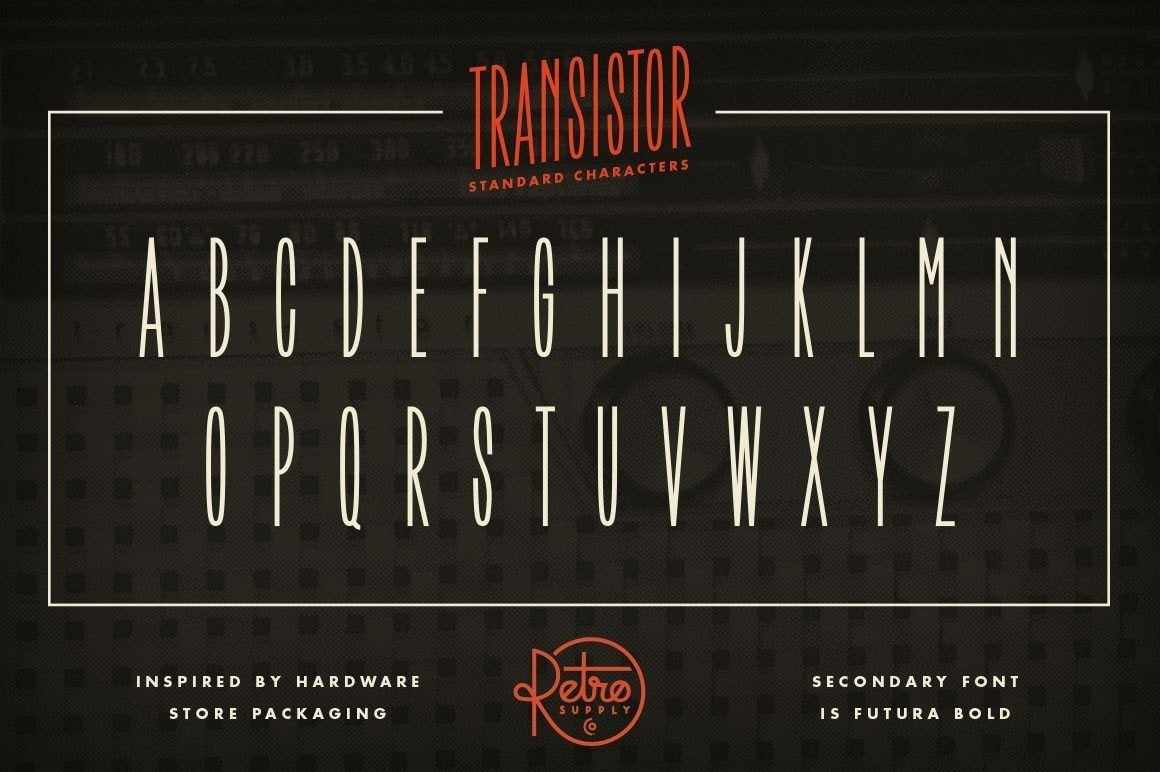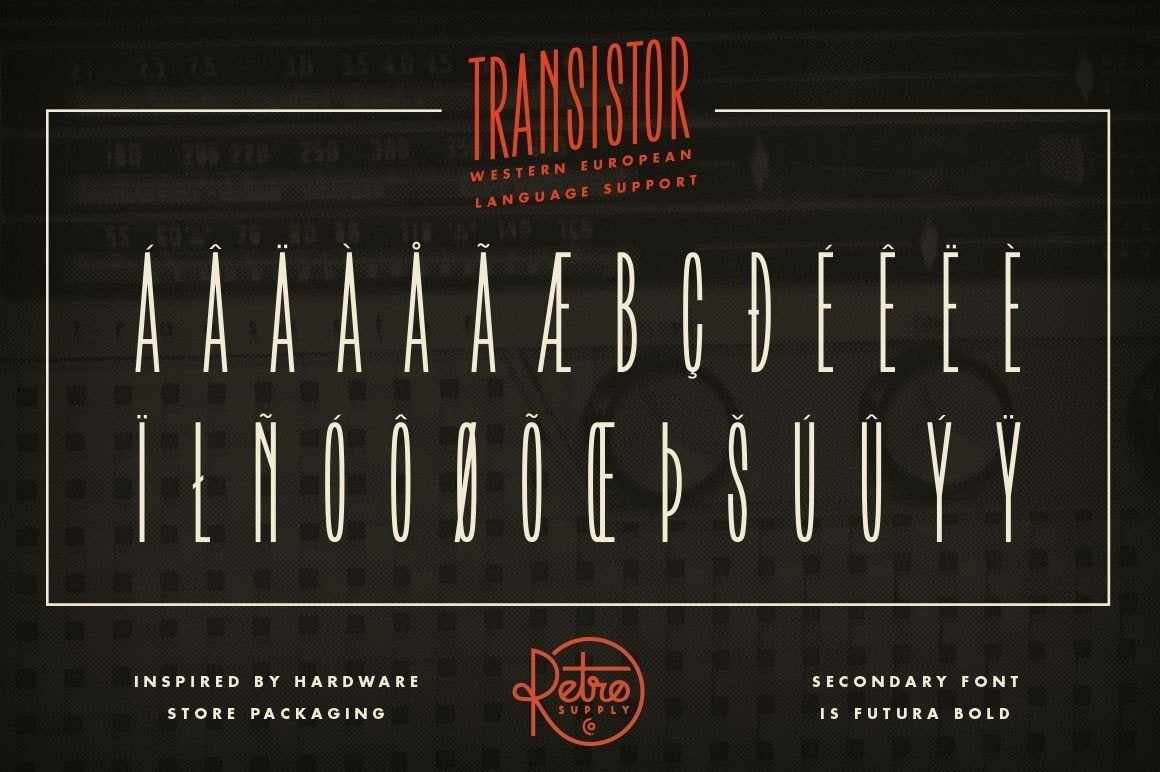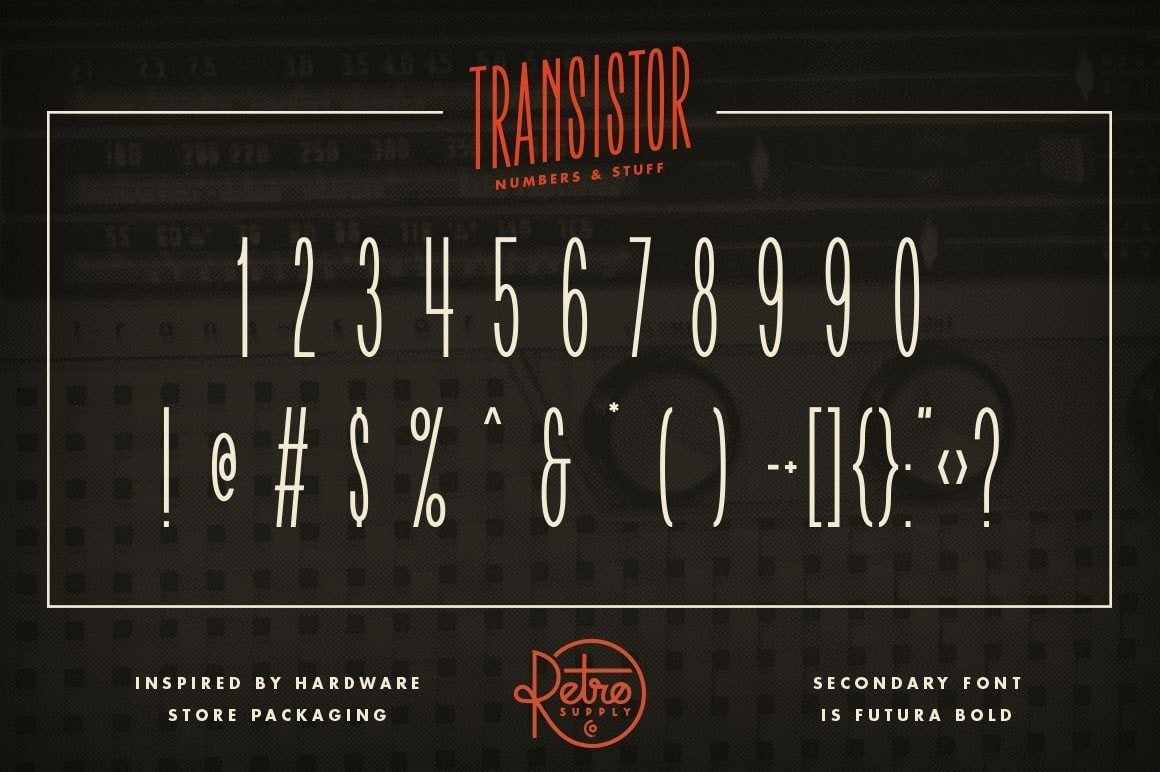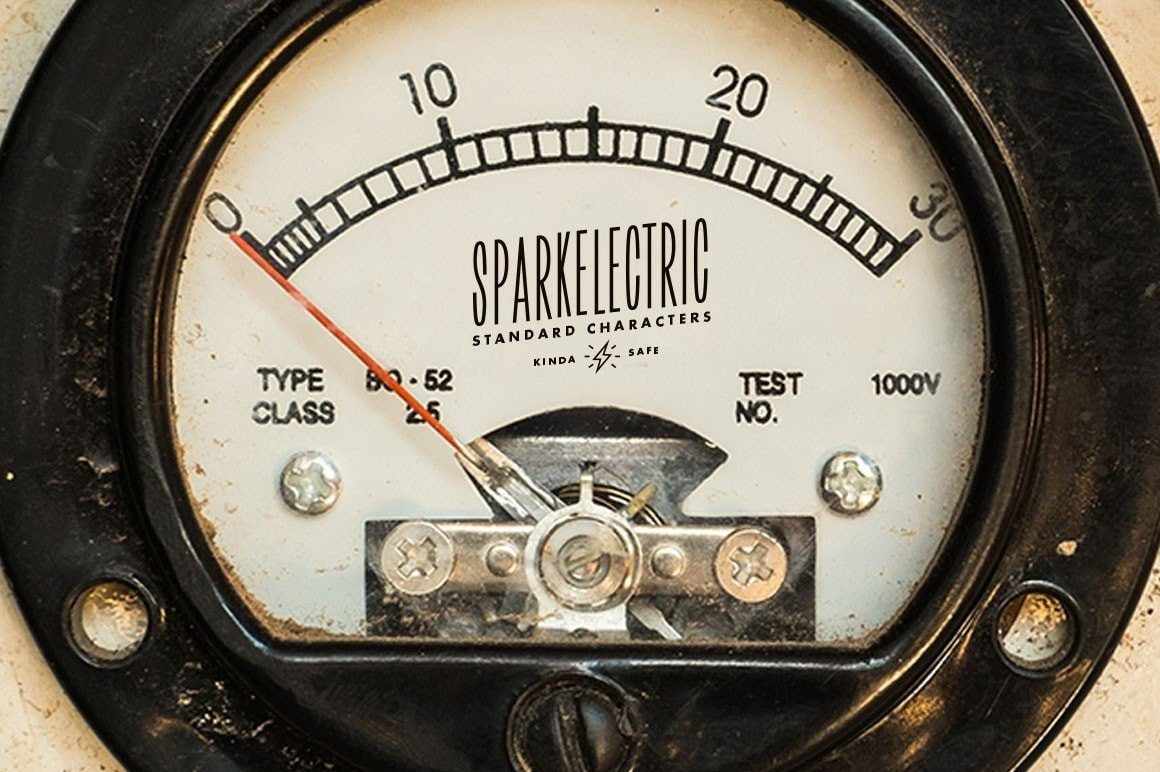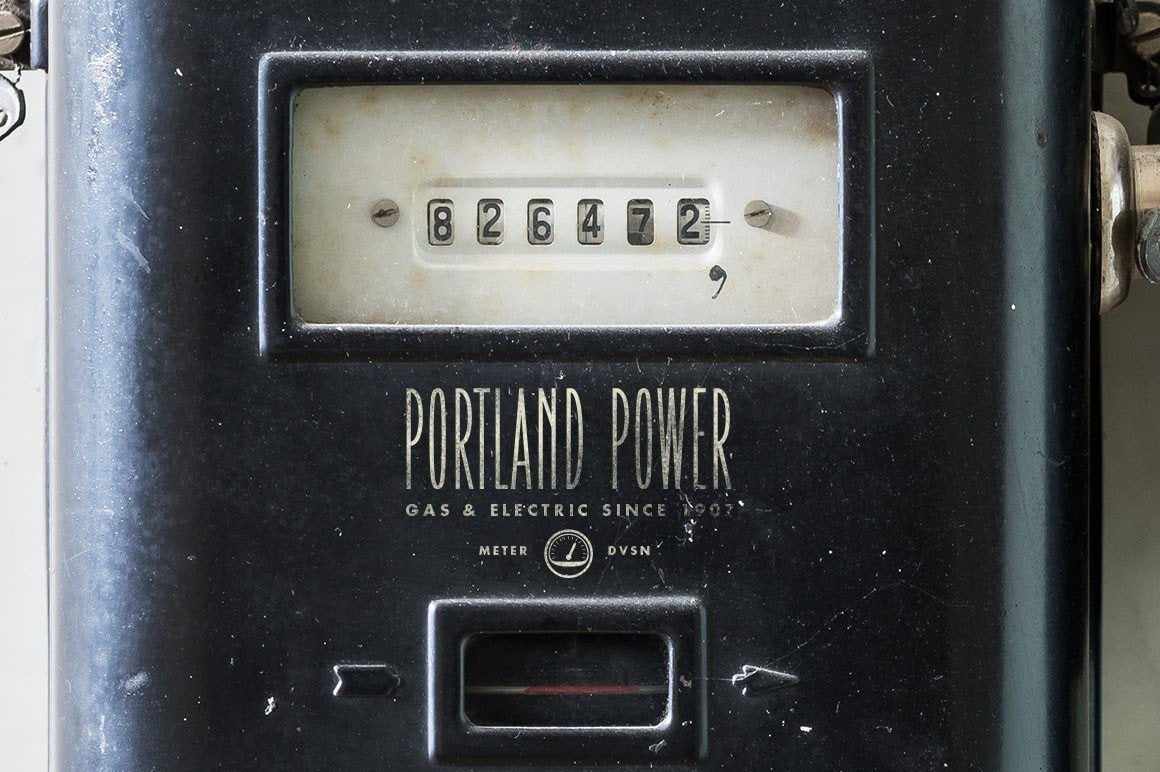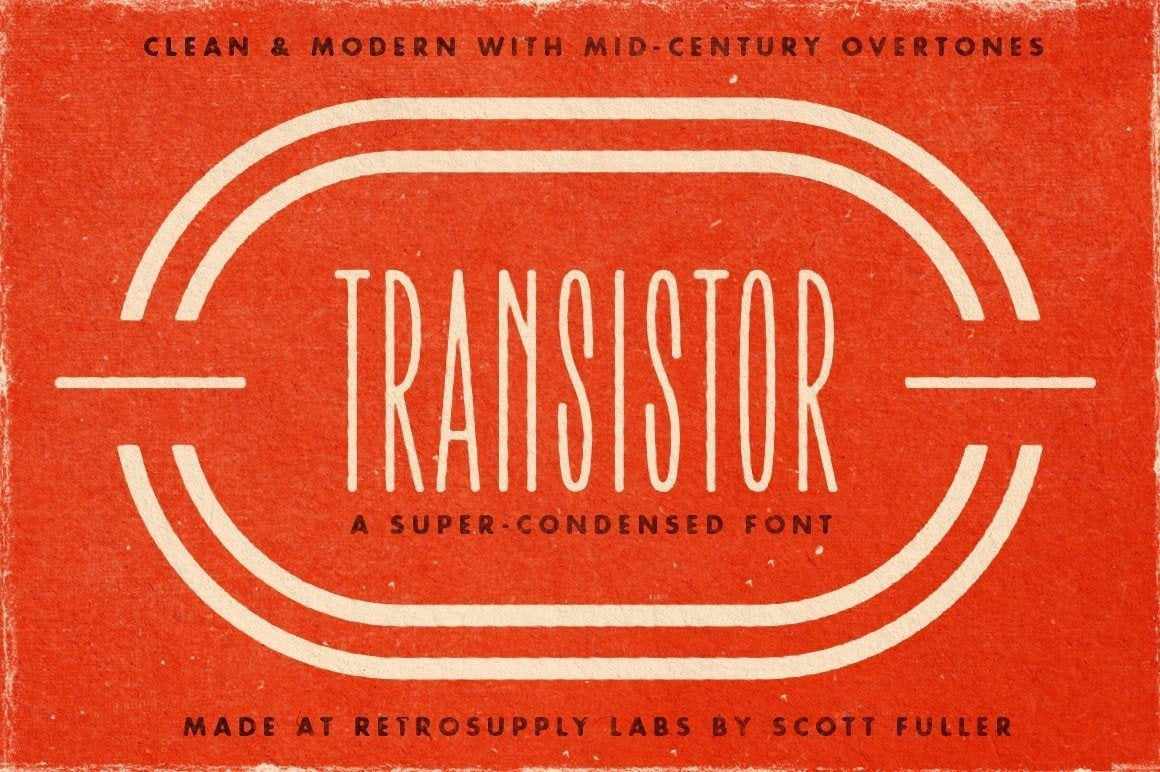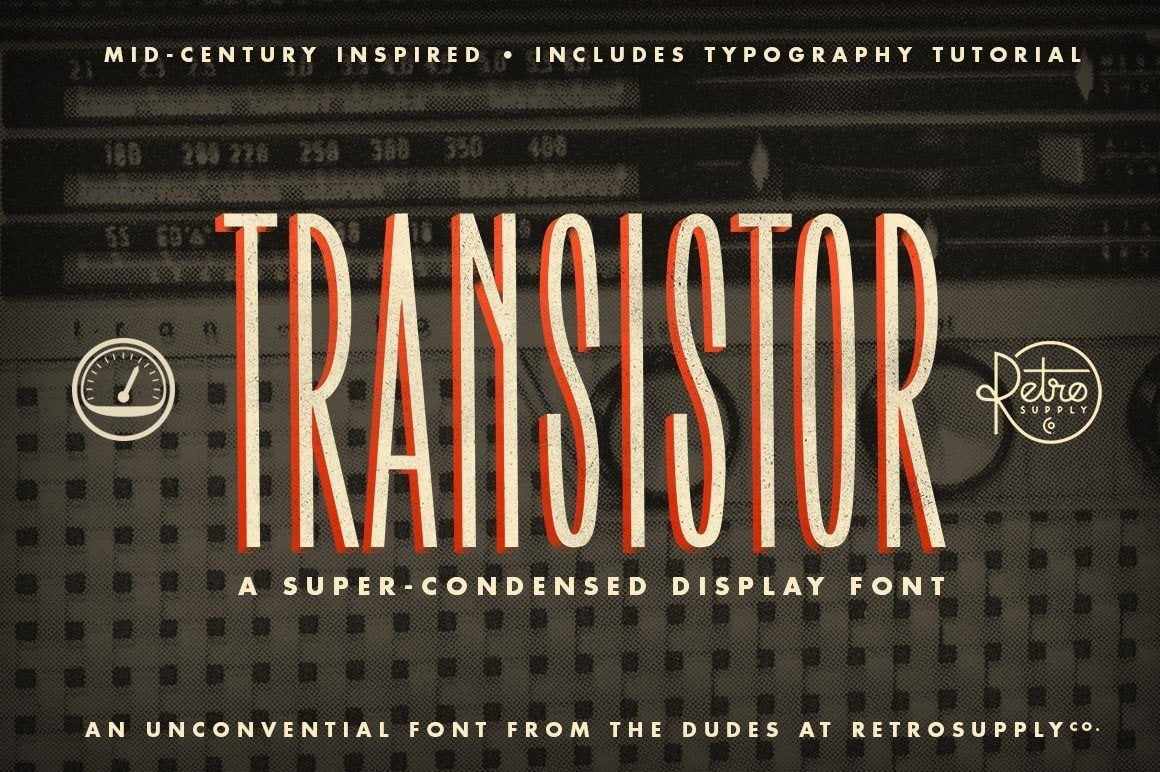
The Story
A mid-century condensed sans-serif inspired by old electrical component packaging from my grandparent's garage in Mountain View, California.
- Super-condensed sans-serif that pays tribute to 1950s hardware packaging
- Language support for all western European languages
- Designed by Scott Fuller of The Studio Temporary
When I was a kid I used to stay at my grandparent's house in Los Altos, California. It was a sprawling ranch style house with wood floors, floor to ceiling windows.
It still had the same furniture in the same places my great aunt left it before she passed.
One of my favorite things to do was dig through my grandfather's old gadgets and tinker with them. He had old cameras, heavy binoculars, old magic tricks and more.
But one thing I'd always play with was his old RCA transistor radio. I'd put it in classical or jazz stations and pretend like I have traveled to the past.
Grandpa and I hanging out on one of my many weekends at their house in Los Altos, California
A lot of nights that fuzzy RCA radio made the big guest room I slept in seem just a little less scary.
Transistor is a simple little font inspired by those times. Reminiscent of the super-condensed typography they'd use on everything from radios to boxes of nails.